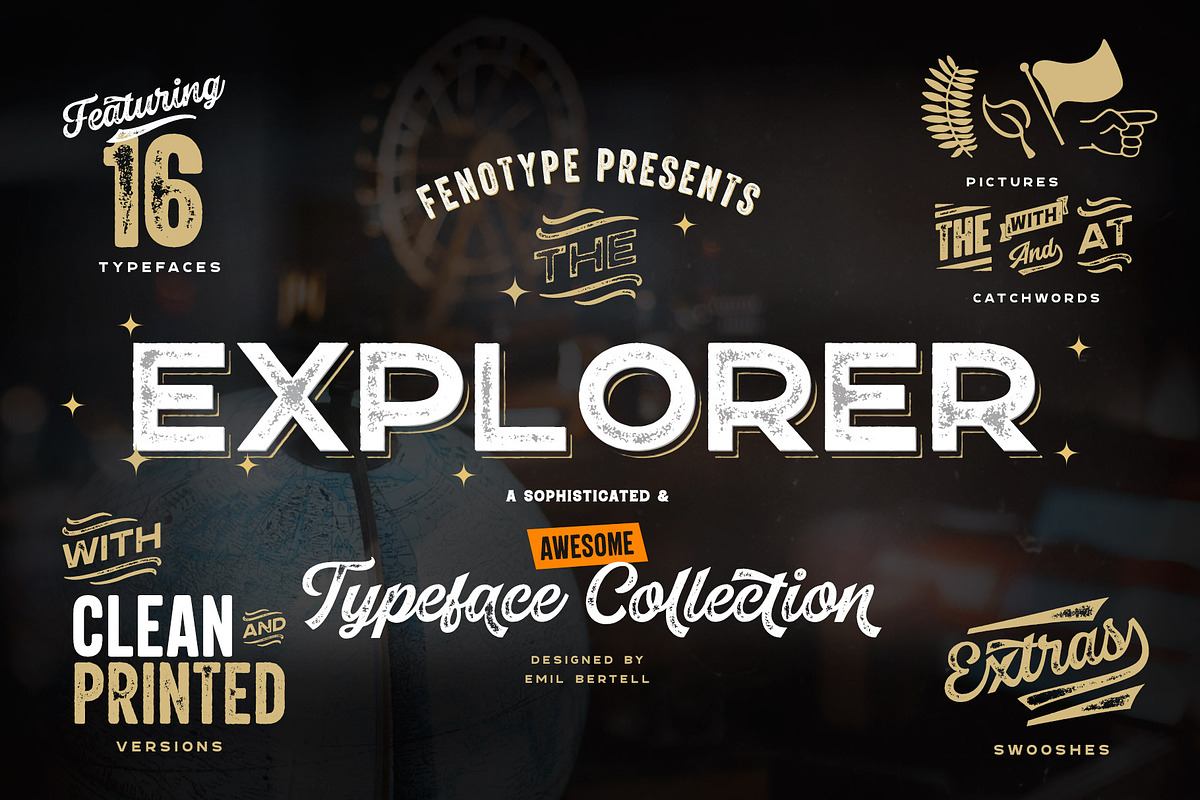
Explorer 21 Fonts Collection Free Download
Explorer 21 Fonts Collection Free Download is a comprehensive bundle that includes 21 carefully designed fonts, offering a variety of styles to suit every creative project. This collection features a mix of elegant scripts, bold display fonts, modern serifs, and clean sans-serifs, providing you with endless possibilities for logos, branding, invitations, posters, and more. Whether you're designing for a luxury brand, a creative campaign, or a personal project, Explorer 21 Fonts Collection Free Download has everything you need to make your designs stand out. Experiment with different fonts to find the perfect match for your project, and explore the collection in personal projects before purchasing a commercial license. Elevate your designs with this diverse and dynamic font collection.